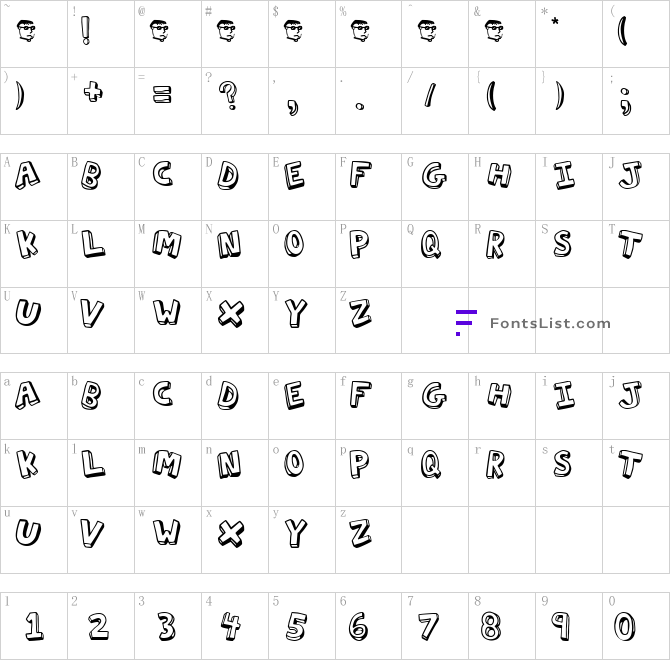
- Font Name:Action Jackson
Action-Jackson.ttf is a very beautiful artistic font, Action-Jackson.ttf is widely used in the design and printing of various books and pictures,Action-Jackson.ttf has a strong visual impact,Action-Jackson.ttf is a commonly used font in newspapers, magazines and books, and is used in posters, e-commerce Poster design, store design, logo design, font design and other fields.Action-Jackson.